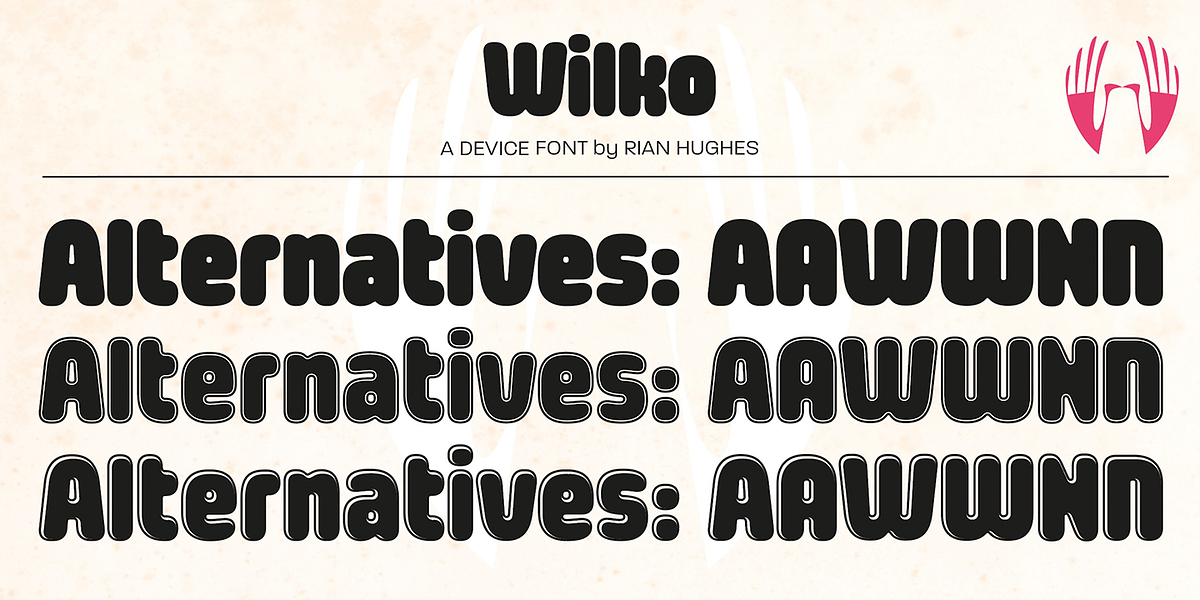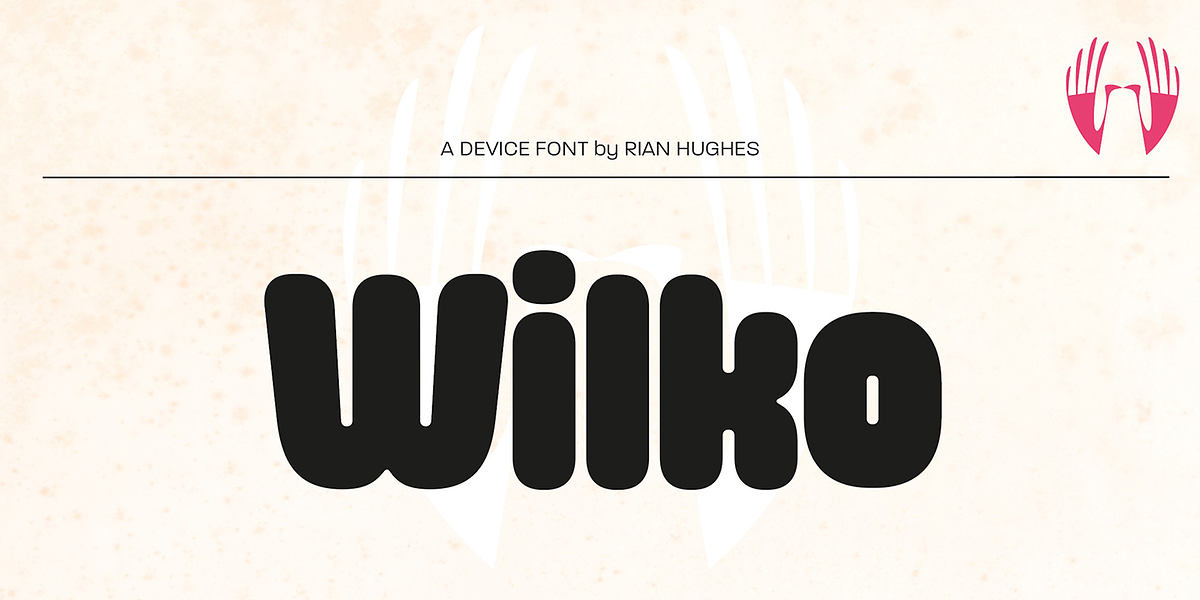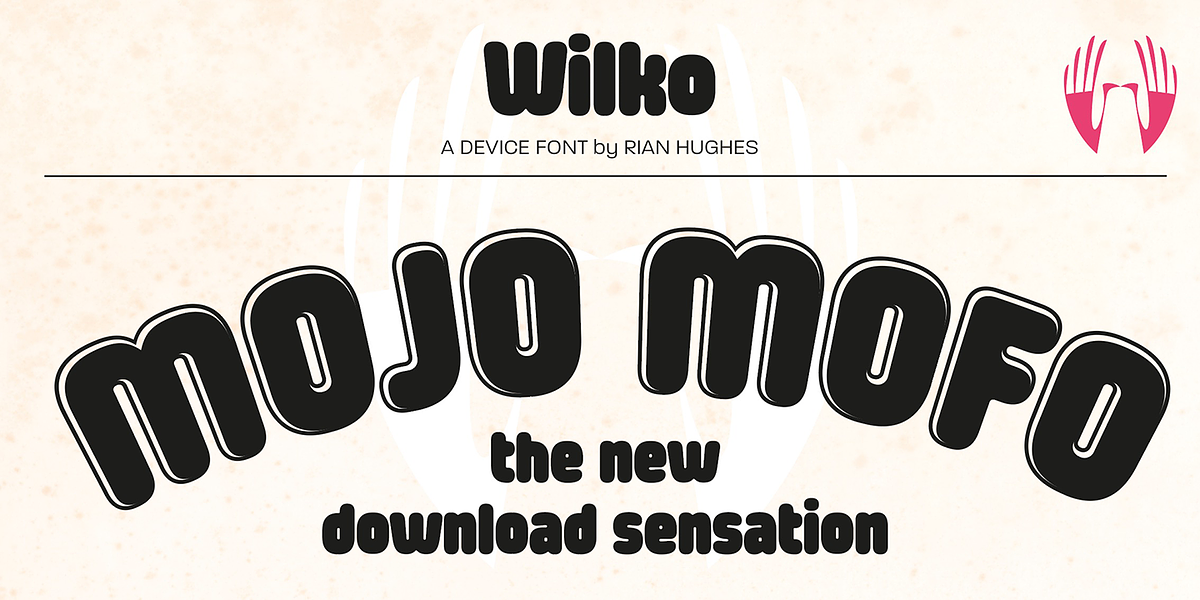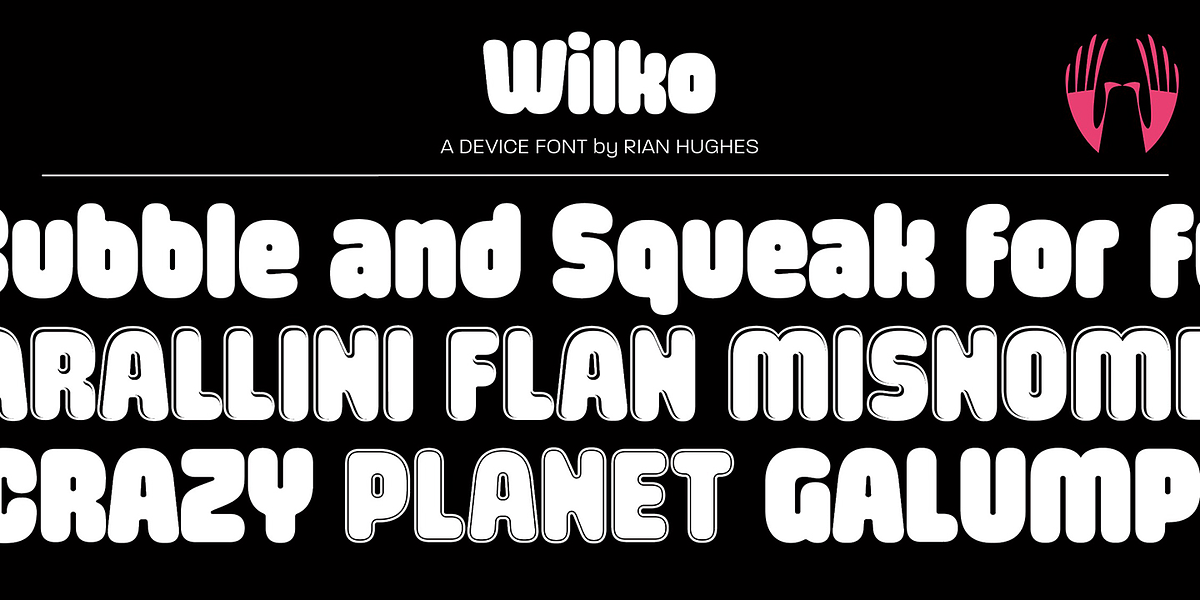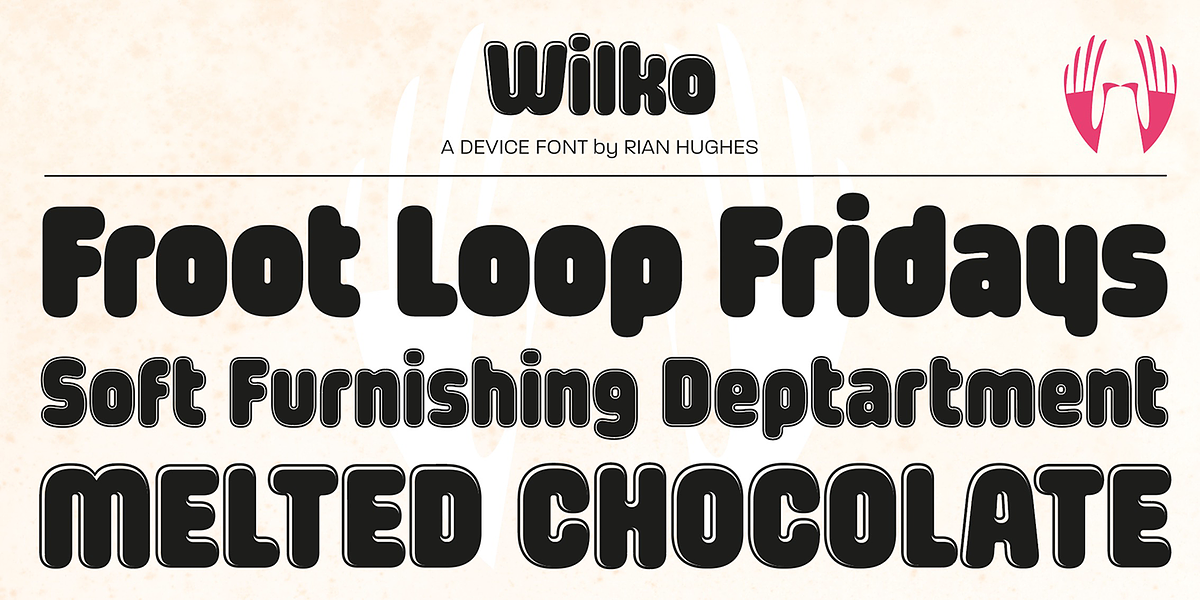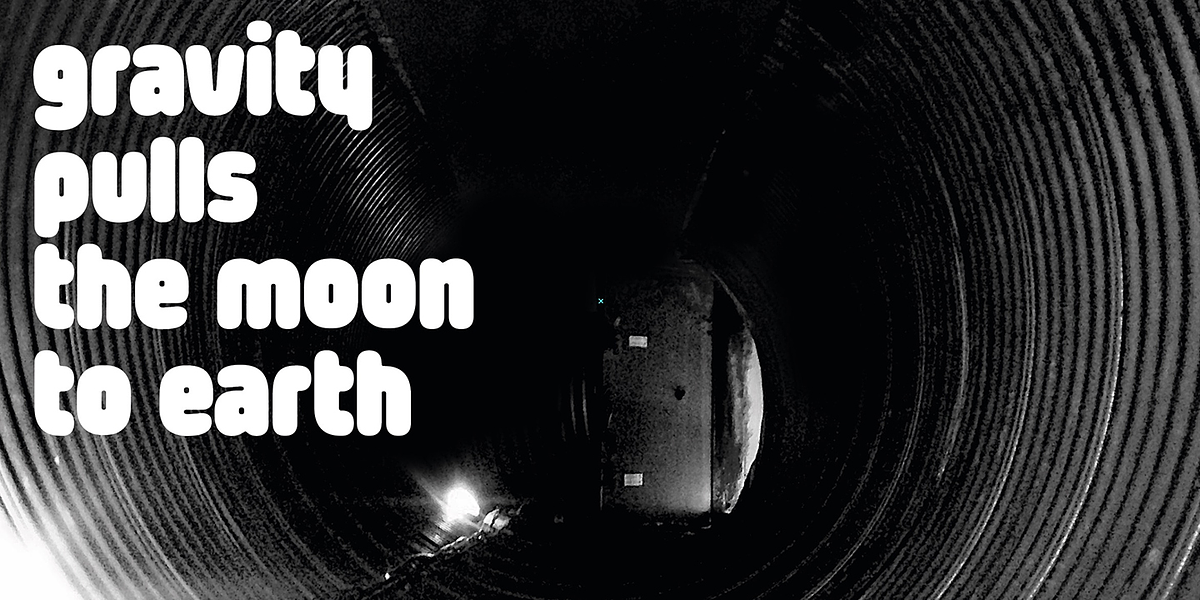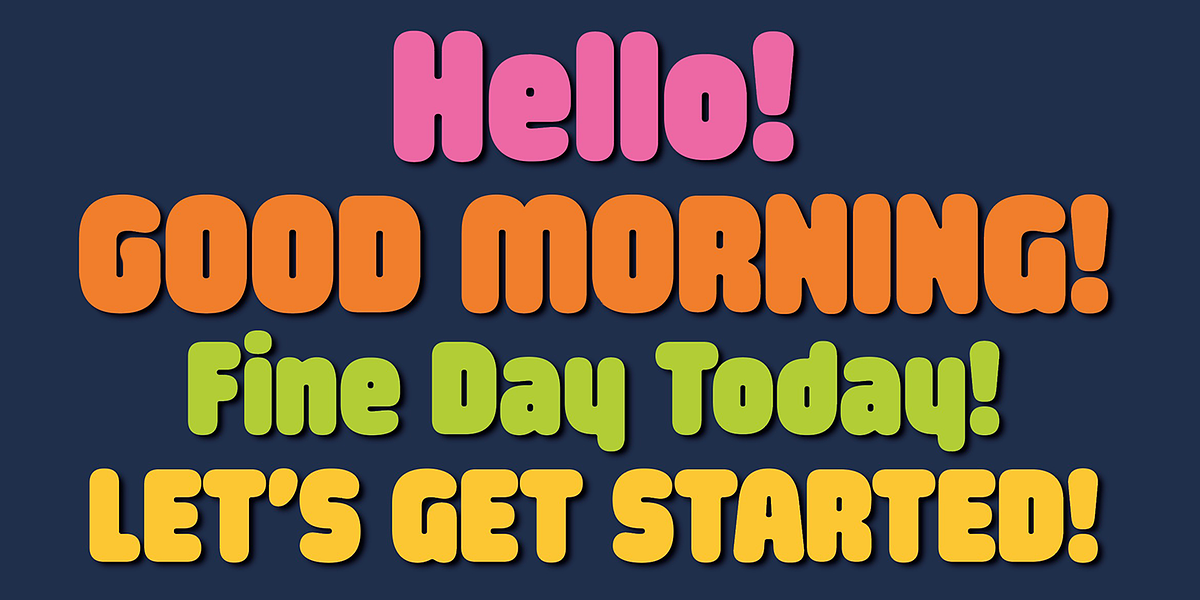
Wilko
Wilko is a bold and friendly geometric display typeface designed for maximum impact. It features rounded forms, layered effects, and an embossed appearance that evokes a carnival-like aesthetic.